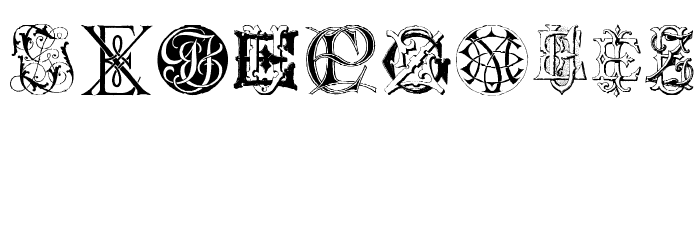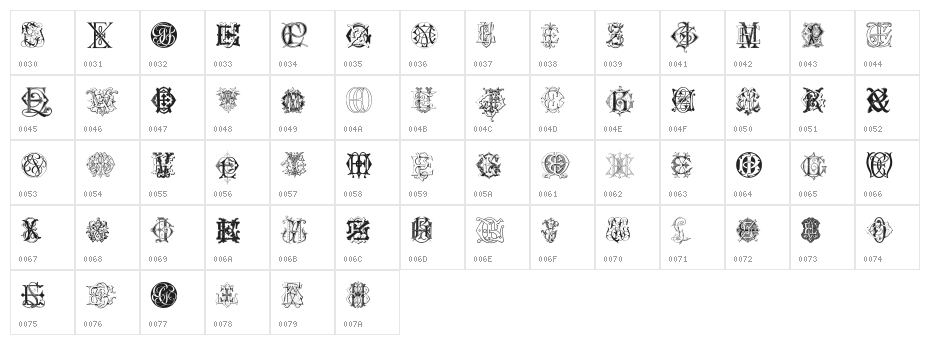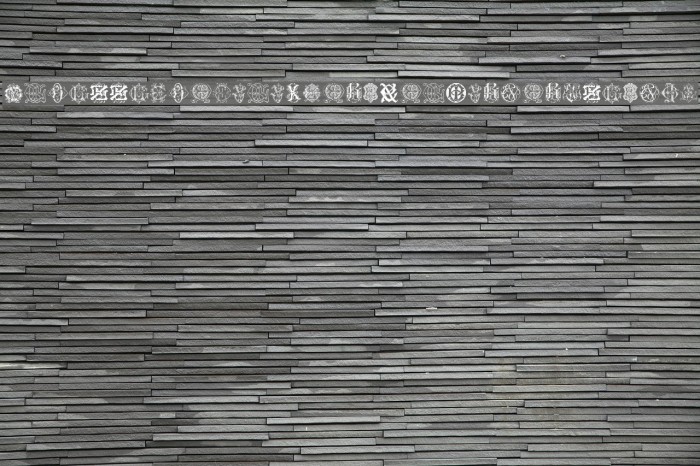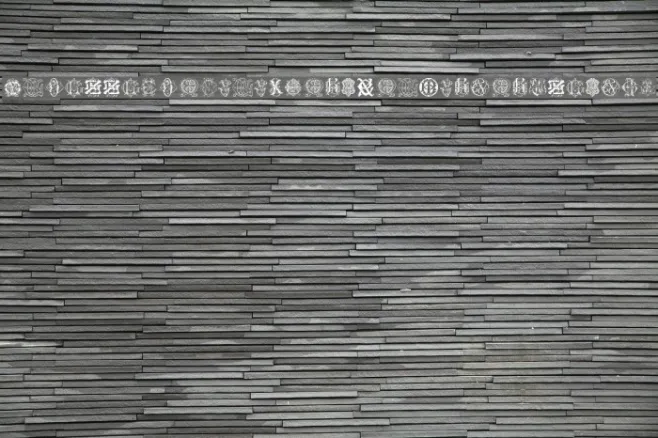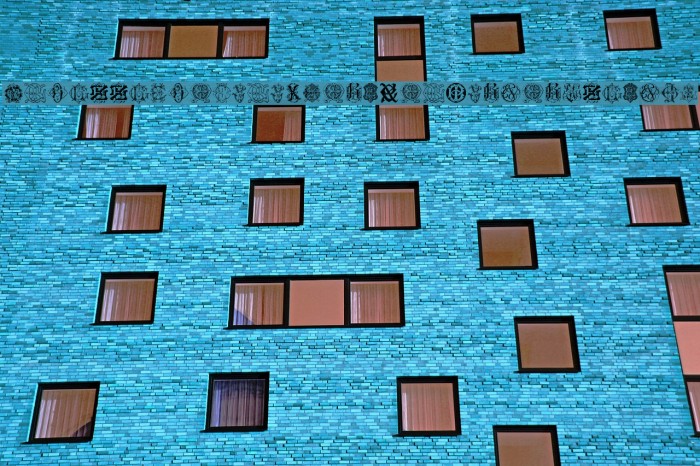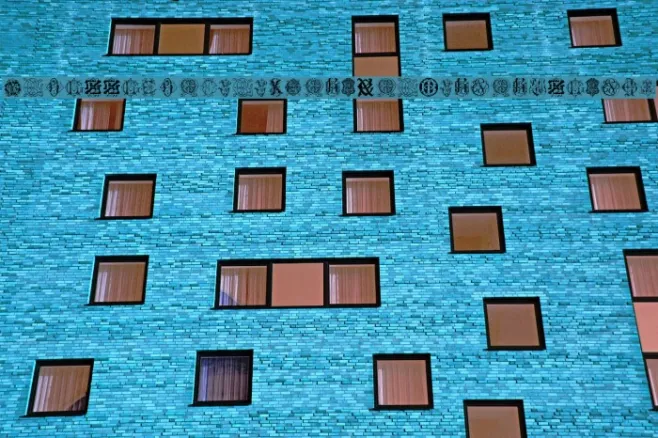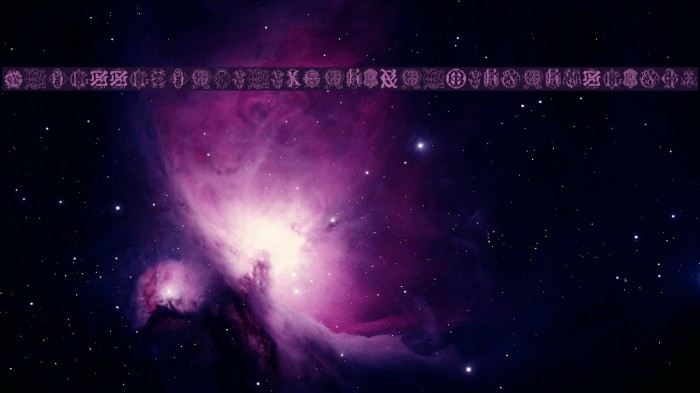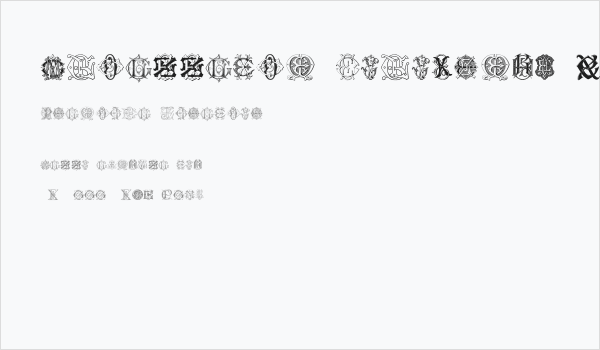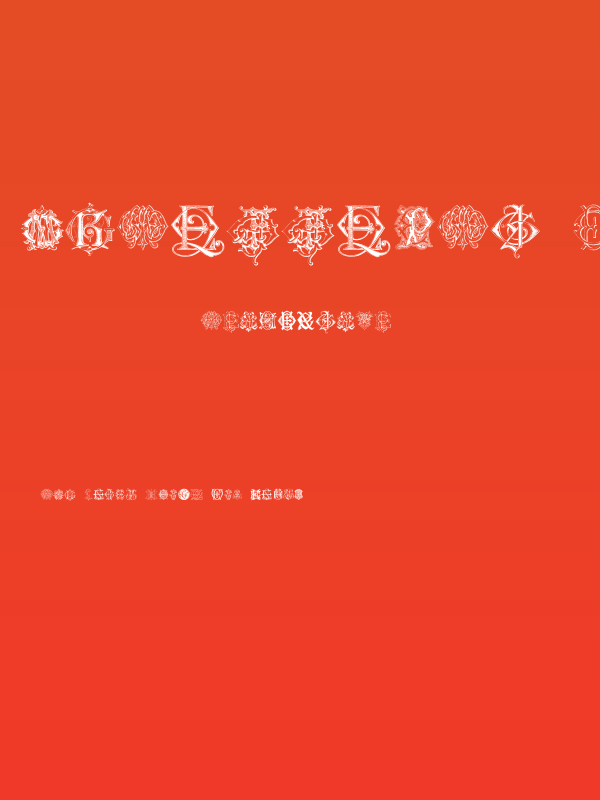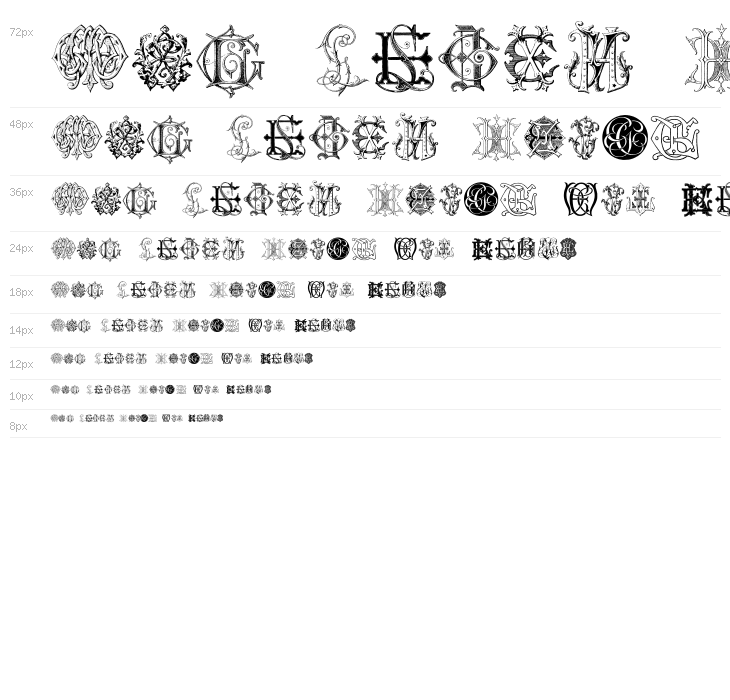
Intellecta Monograms Random Samples Six Font
Intellecta Monograms Random Samples Six Description
This font is a collection of highly decorative and intricate monograms, each letter crafted with elaborate flourishes and ornate details. The design features intertwining lines and complex patterns, giving it a luxurious and vintage feel. The letters are bold and commanding, with a strong presence that makes them ideal for creating a sense of elegance and sophistication. The style is reminiscent of historical calligraphy and traditional engraving, making it suitable for projects that require a touch of classic refinement. Each character is unique, showcasing a blend of artistic creativity and meticulous craftsmanship.
| Use Case | Logos, Headlines, Decorative elements |
| Proposed Projects | Ideal for wedding invitations, luxury branding, certificates, and decorative book covers. |